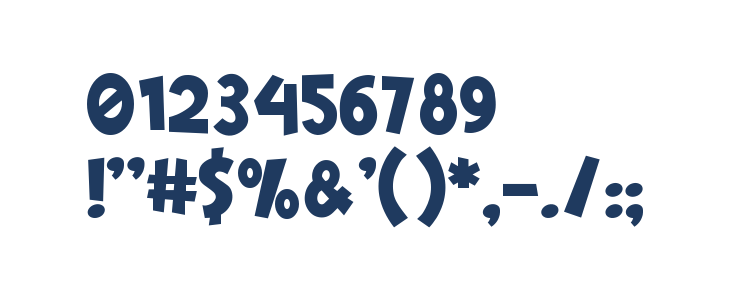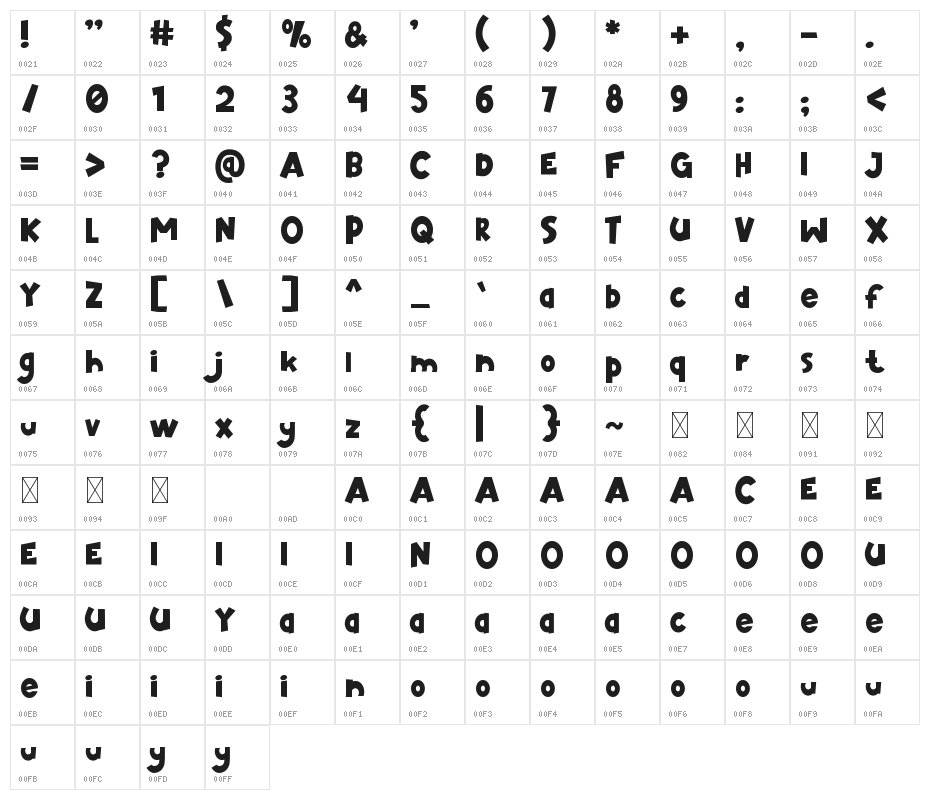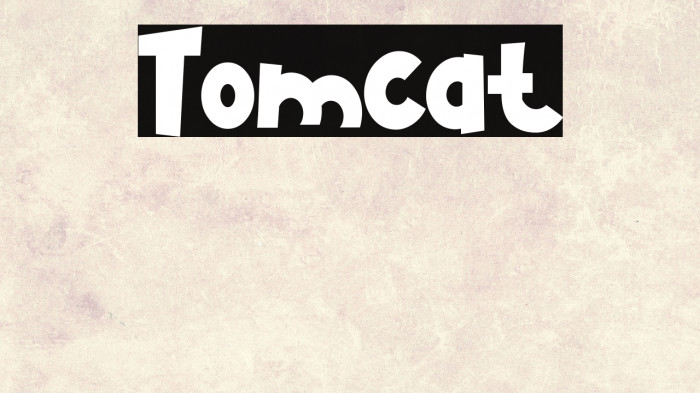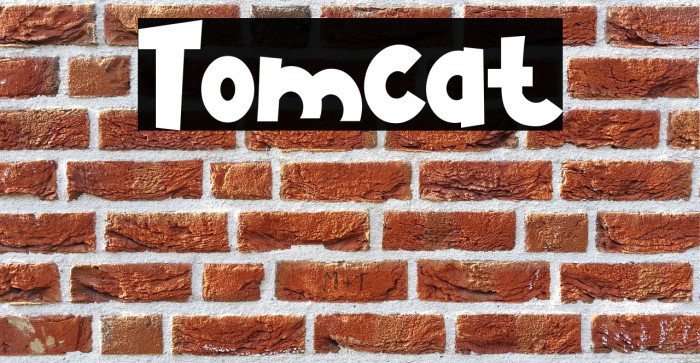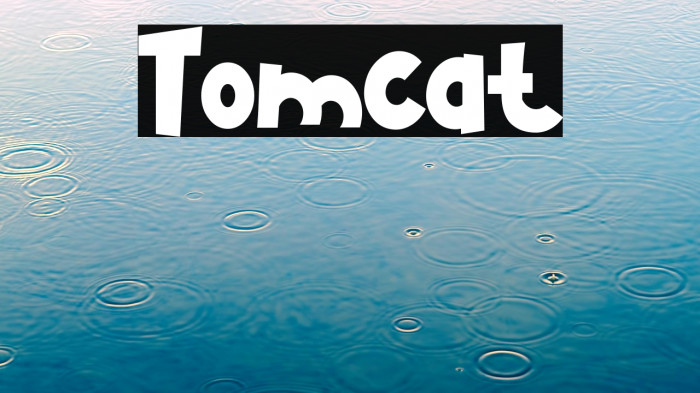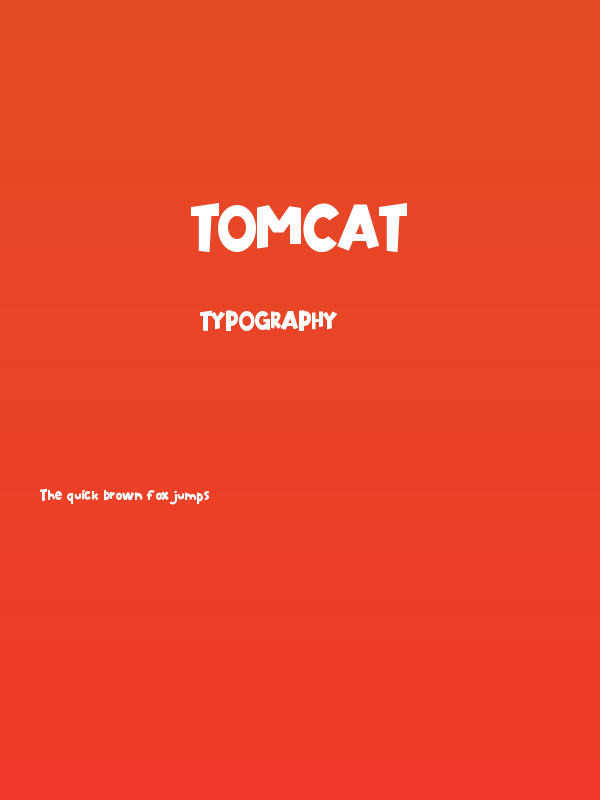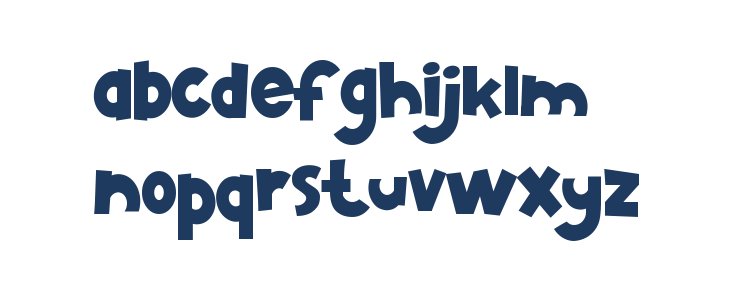
Tomcat Font
Tomcat Description
This font features a bold and playful design with exaggerated curves and a slightly irregular baseline, giving it a whimsical and energetic appearance. The characters are thick and rounded, with a strong presence that commands attention. The uppercase letters are particularly striking, with a unique flair that adds personality to each character. The lowercase letters maintain the same playful style, ensuring consistency throughout the text. Numbers and special characters are equally bold and expressive, making them stand out in any design. This font is ideal for projects that require a fun and lively touch.
| Proposed Projects | Ideal for children's books, playful branding, posters, and party invitations. |